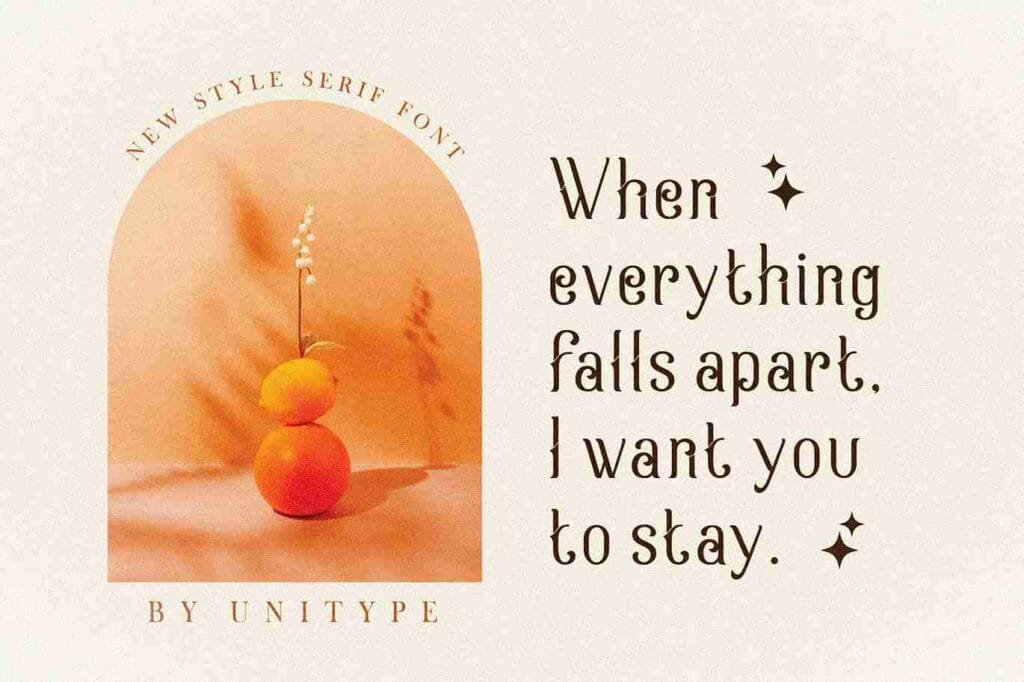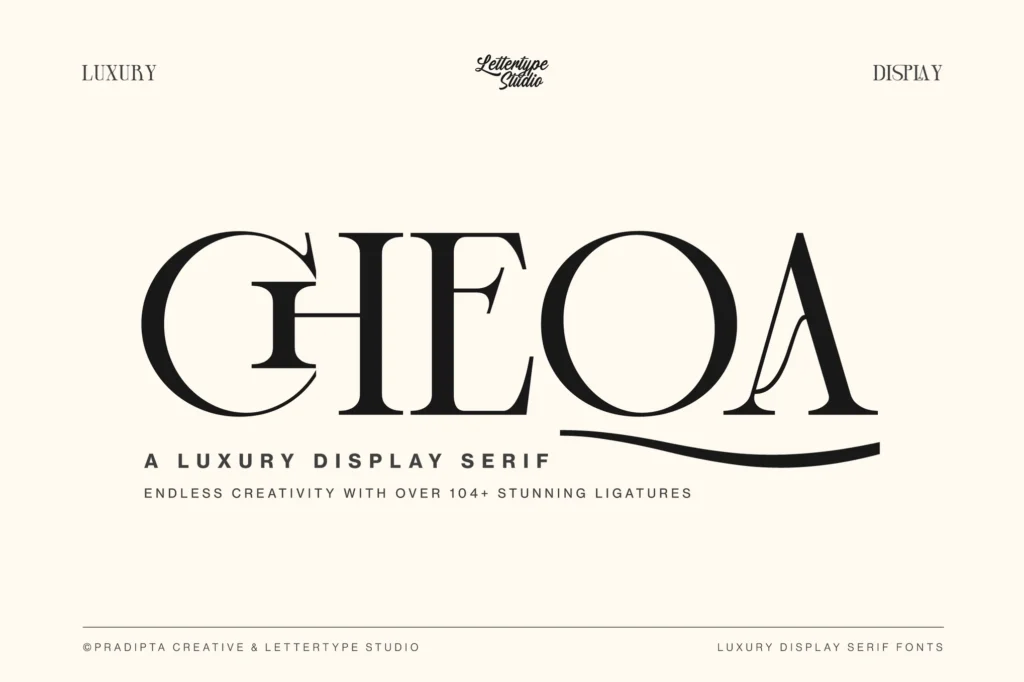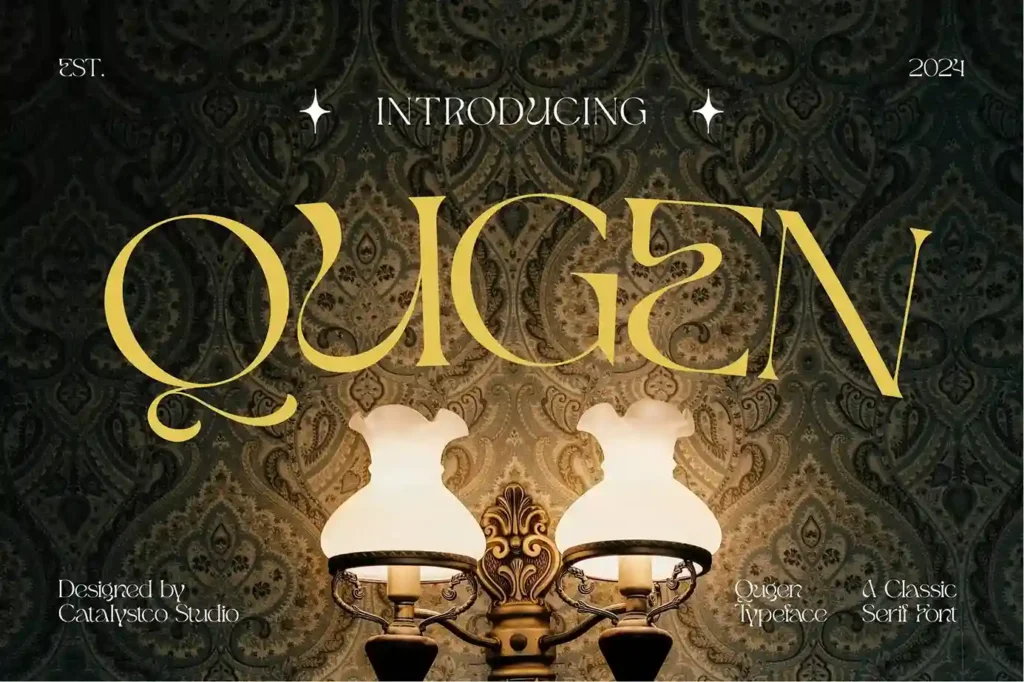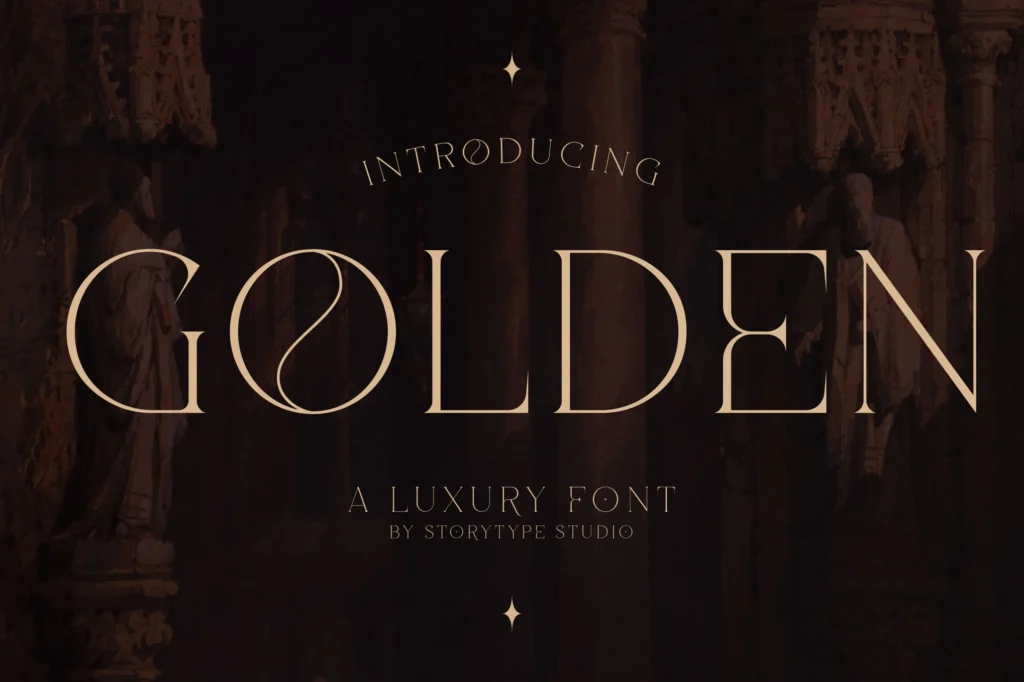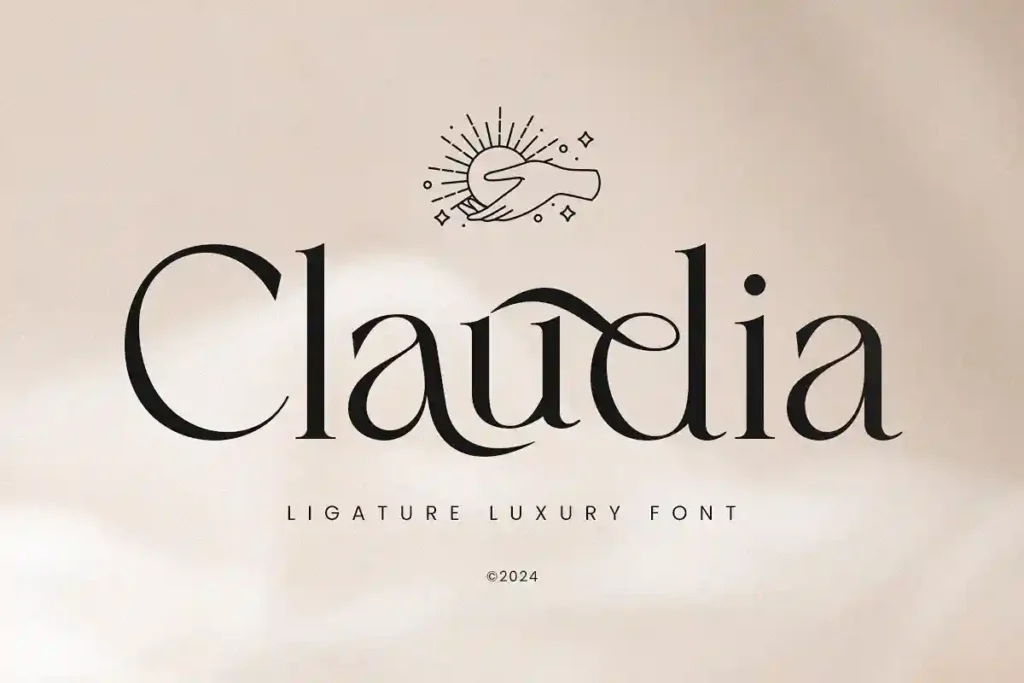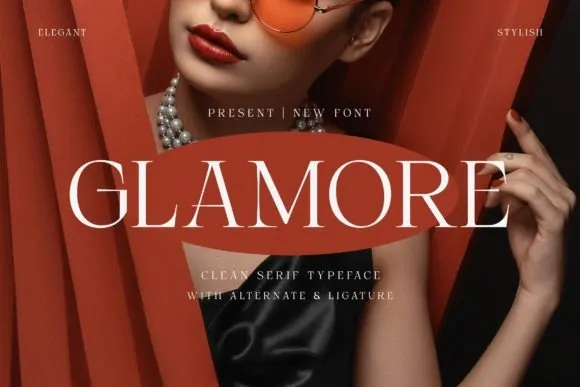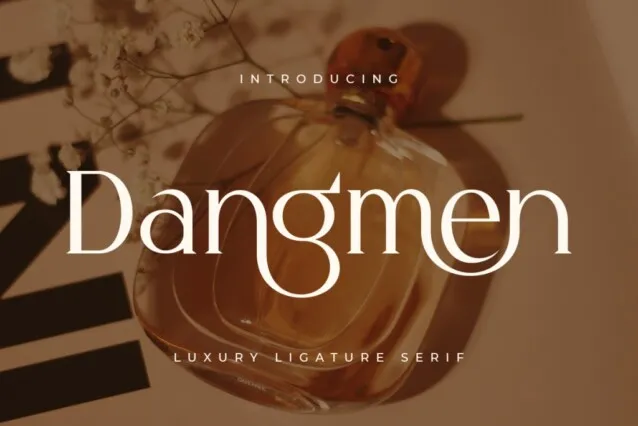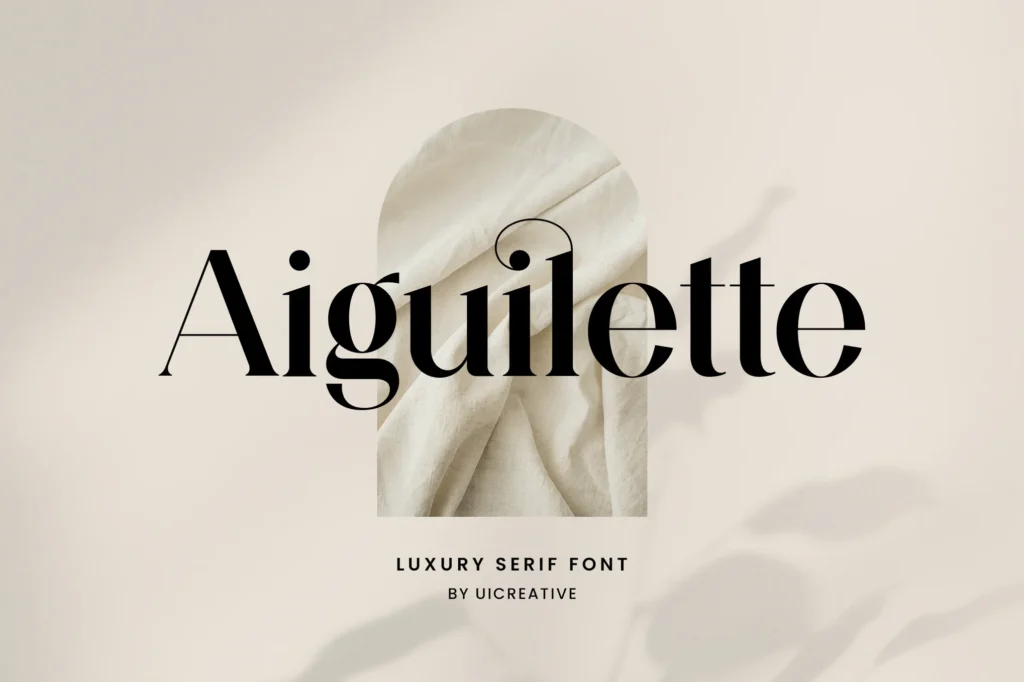
Factors to Consider When Choosing a Luxury Serif Font
Selecting the right luxury serif font isn’t just about picking one that looks elegant. A well-chosen font should enhance your design, reinforce brand identity, and work seamlessly across different platforms. Here are key factors to consider before making your choice.
1. Legibility & Readability
A font may look beautiful, but if it’s hard to read, it loses its purpose. Luxury brands need to communicate clearly, whether on a website, product packaging, or printed materials. Choose a serif font with well-defined letters, balanced spacing, and a clean structure. High contrast between thick and thin strokes can add elegance, but if overdone, it can reduce readability—especially on smaller screens.
2. Uniqueness & Professionalism
Luxury branding thrives on exclusivity. If a font is overused, it loses its impact. You want a typeface that feels distinctive, refined, and carefully crafted. Many premium brands invest in custom fonts, but you can achieve a similar effect by selecting less common yet professional fonts that reflect elegance and sophistication. Look for fonts with unique ligatures, stylish curves, and subtle details that set them apart.
3. Usage & Versatility
Not all fonts work well in every situation. Some fonts look stunning in logos but don’t read well in body text, while others are great for headlines but feel too bold for elegant branding. Consider where you’ll use the font—logos, website headings, packaging, magazines, or social media. A versatile luxury serif font should maintain its elegance across different sizes and formats without losing clarity or visual impact.
By considering these factors, you can confidently choose a luxury serif font that enhances your brand’s identity, adds a premium feel, and ensures long-term usability. Now, let’s explore the best luxury serif fonts for 2025 to elevate your design projects!
Top 25 Luxury Serif Fonts for 2025
1. Forseti – Luxury Serif Font
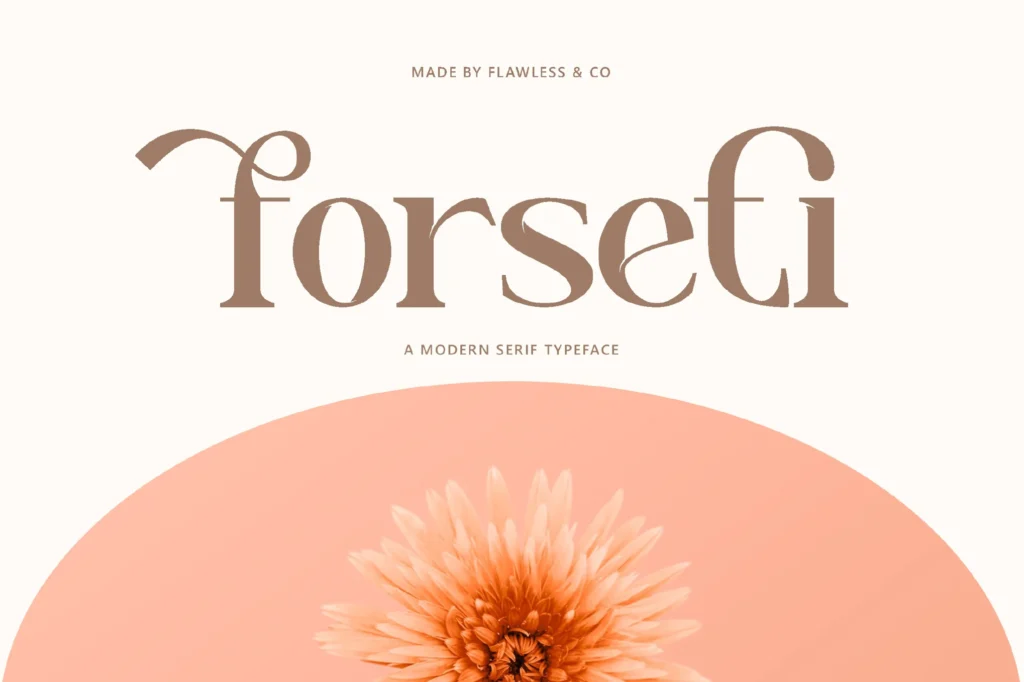
Forseti is a sophisticated serif font that exudes elegance and charm. Designed with a fashionable touch, it features graceful, elongated letterforms and stylish ligatures, making it perfect for luxury and feminine projects.
Ideal Use Case: This typeface is ideal for upscale logos, editorial designs, branding materials, and any project requiring a refined, modern aesthetic.
2. Calya – Modern Luxury Serif
Calya is a sophisticated serif font that seamlessly blends classic elegance with contemporary design elements. It features clean, well-defined lines and a modern luxury style, making it versatile for various creative projects. The font includes uppercase and lowercase letters, numerals, and a wide range of punctuation marks, ensuring comprehensive typographic support.
Ideal Use Case: Calya is perfect for high-end branding projects, including luxury logos, web design, posters, illustrations, and badges. Its refined appearance makes it suitable for fashion-related designs, upscale product packaging, and any project aiming to convey a sense of elegance and modernity.
3. Regasto – Luxury Serif Font
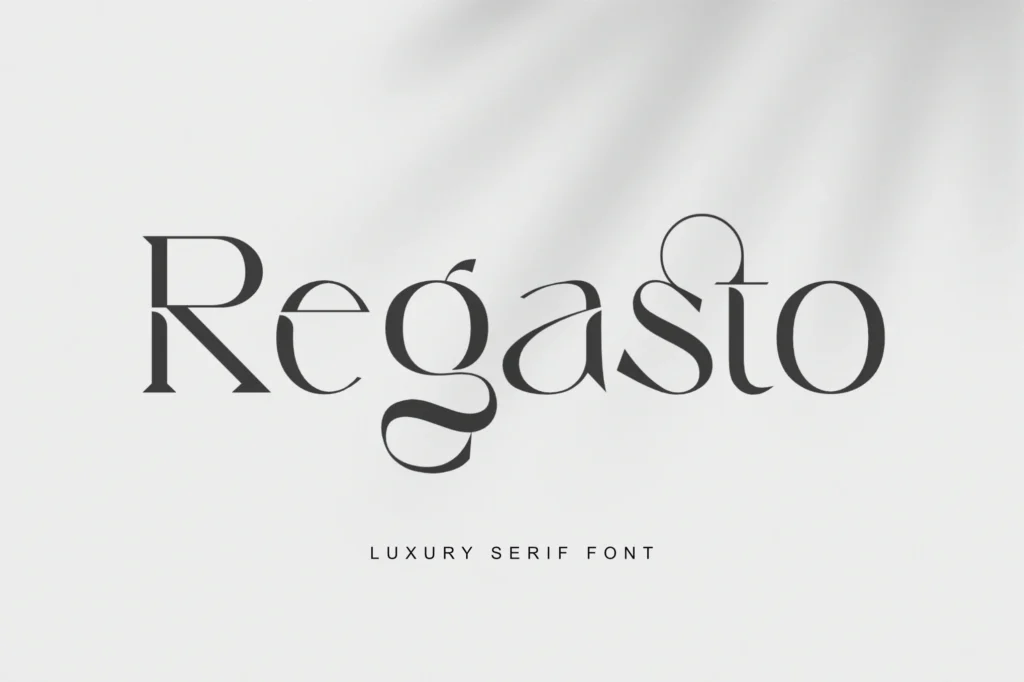
Regasto is a display serif font that embodies luxury and elegance. Designed by Sealoung, it features classic, elegant curves and lines, exuding an aura of opulence and timeless refinement. The font includes uppercase and lowercase letters, numerals, punctuation, ligatures, and alternate characters, allowing for versatile and customized designs.
Ideal Use Case: Regasto is perfect for luxury-themed projects such as high-end branding, upscale invitations, magazine layouts, social media graphics, and logos. Its refined appearance makes it suitable for any design aiming to convey sophistication and class.
4. Ariens Nobela – Luxury Font
Ariens Nobela is an elegant and luxurious serif typeface that exudes sophistication and charm. Its graceful serifs and distinctive punctuation marks contribute to its unique and lovely feel, making it a standout choice for premium design projects.
Ideal Use Case: This font is perfect for creating upscale logos, magazine layouts, social media graphics, business cards, and other branding materials that require a refined and exclusive appearance.
5. Progesteron Luxury Serif Font
Progesteron is a high-contrast display typeface that artfully combines smooth serifs with script-like flourishes, creating a unique blend of classic Roman letterforms and elegant, modern touches. This fusion results in a distinctive and sophisticated appearance, making it suitable for a variety of design projects.